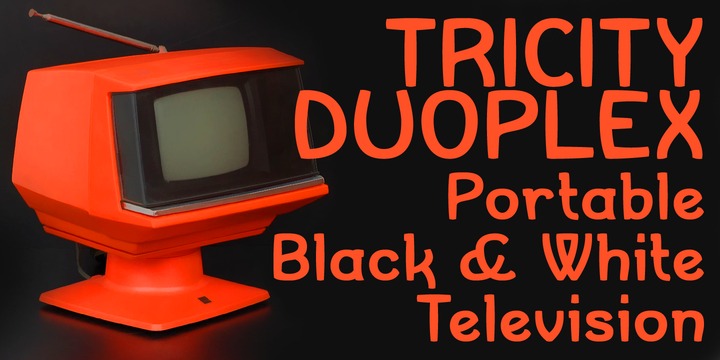
• Amie™
Amie is a friendly Sans Serif display face, with a hint of hand drawn flair. Ideal for poster work, album covers, book covers and for bringing an element of friendly style anywhere.